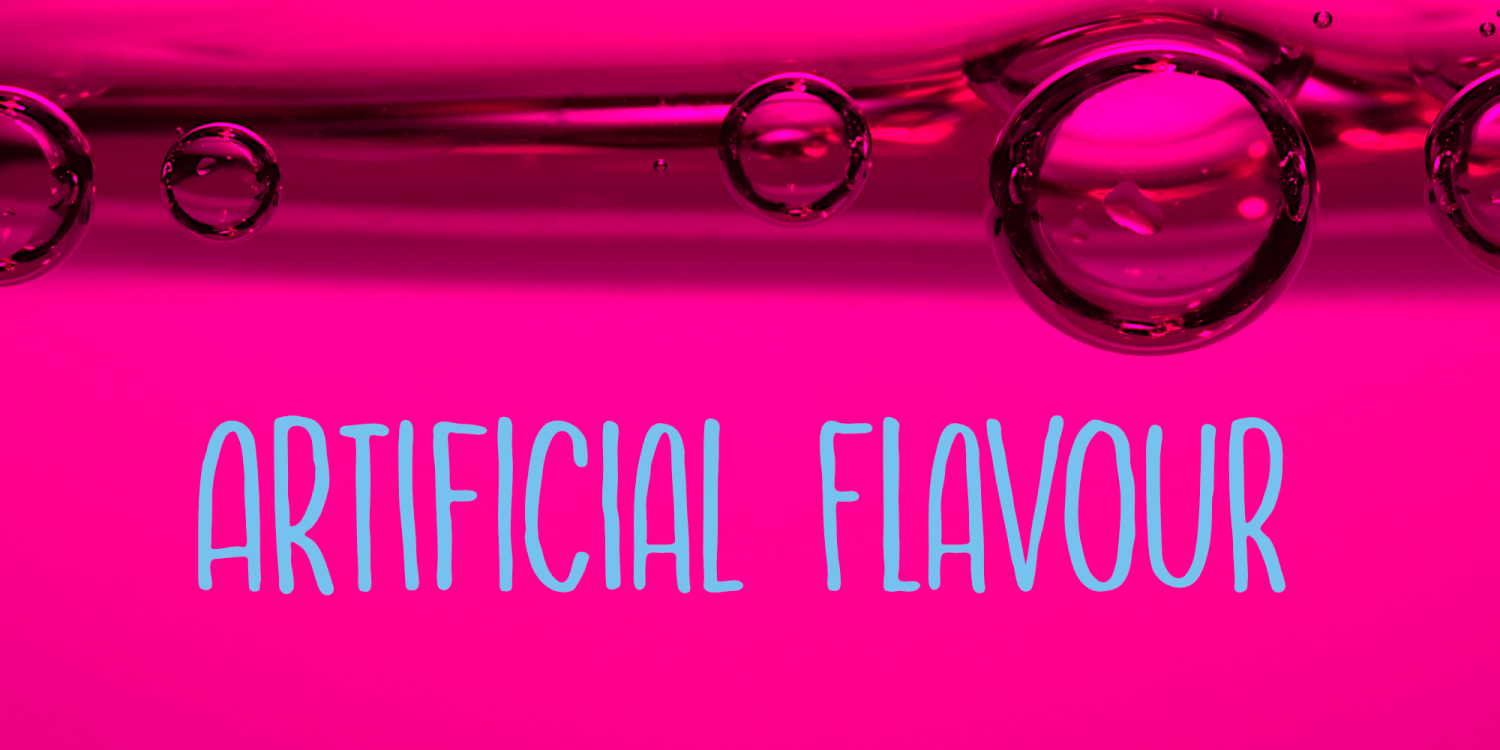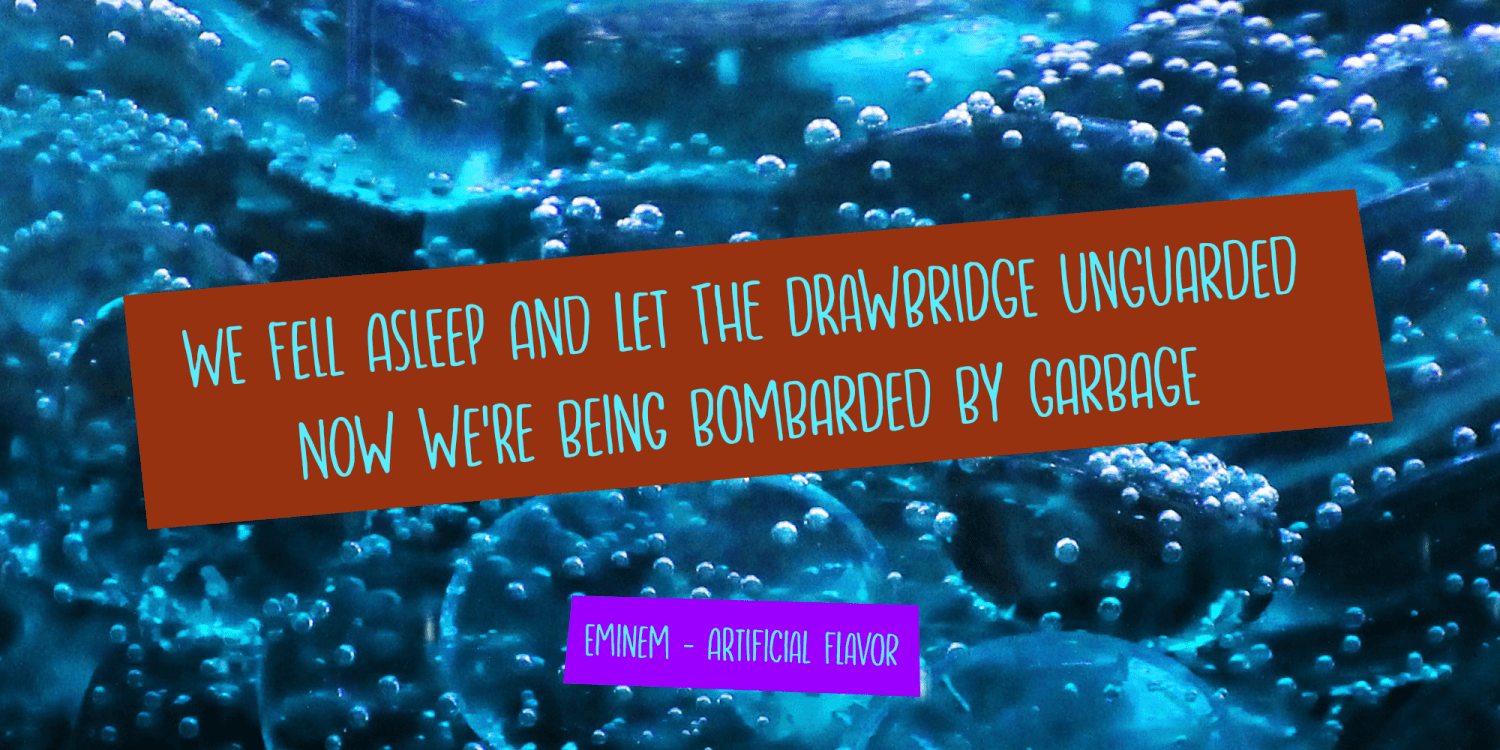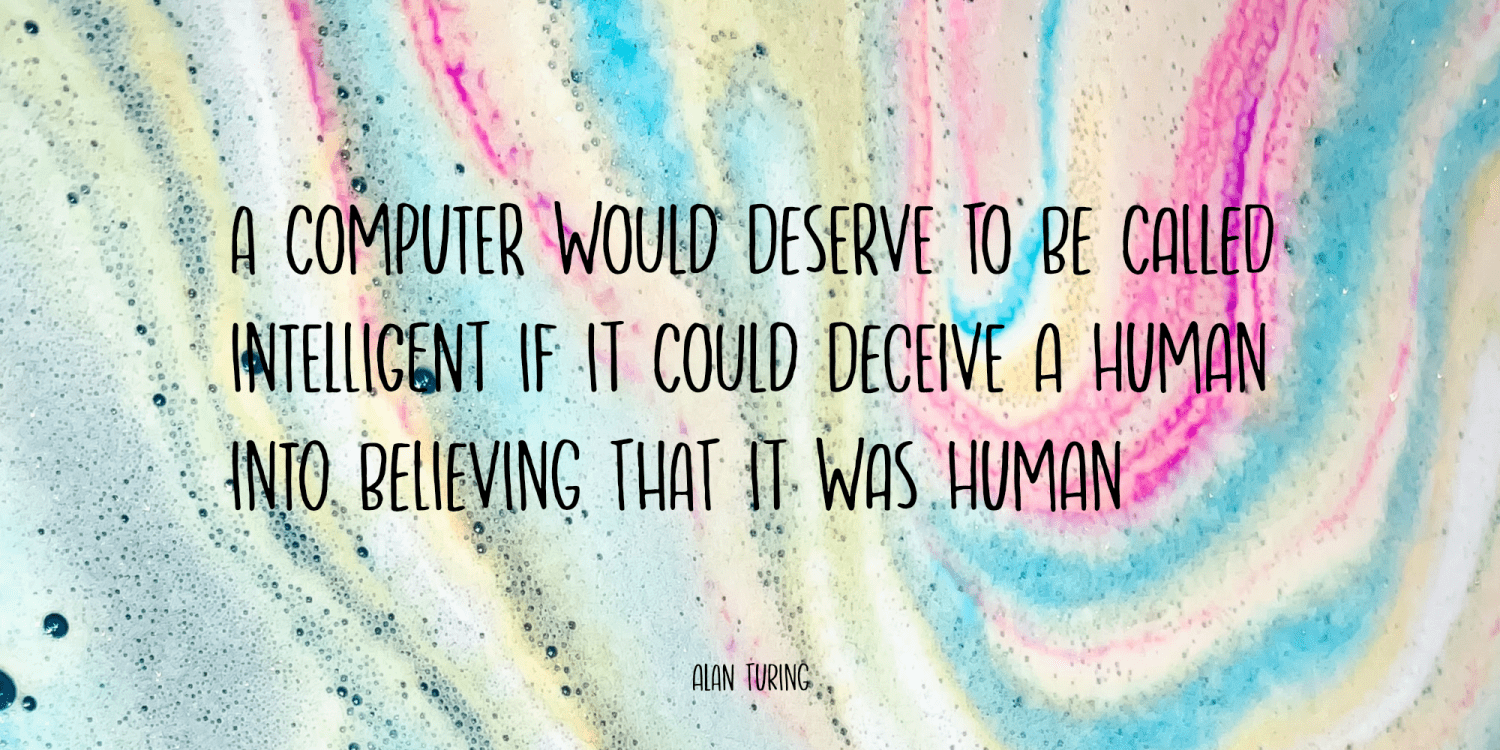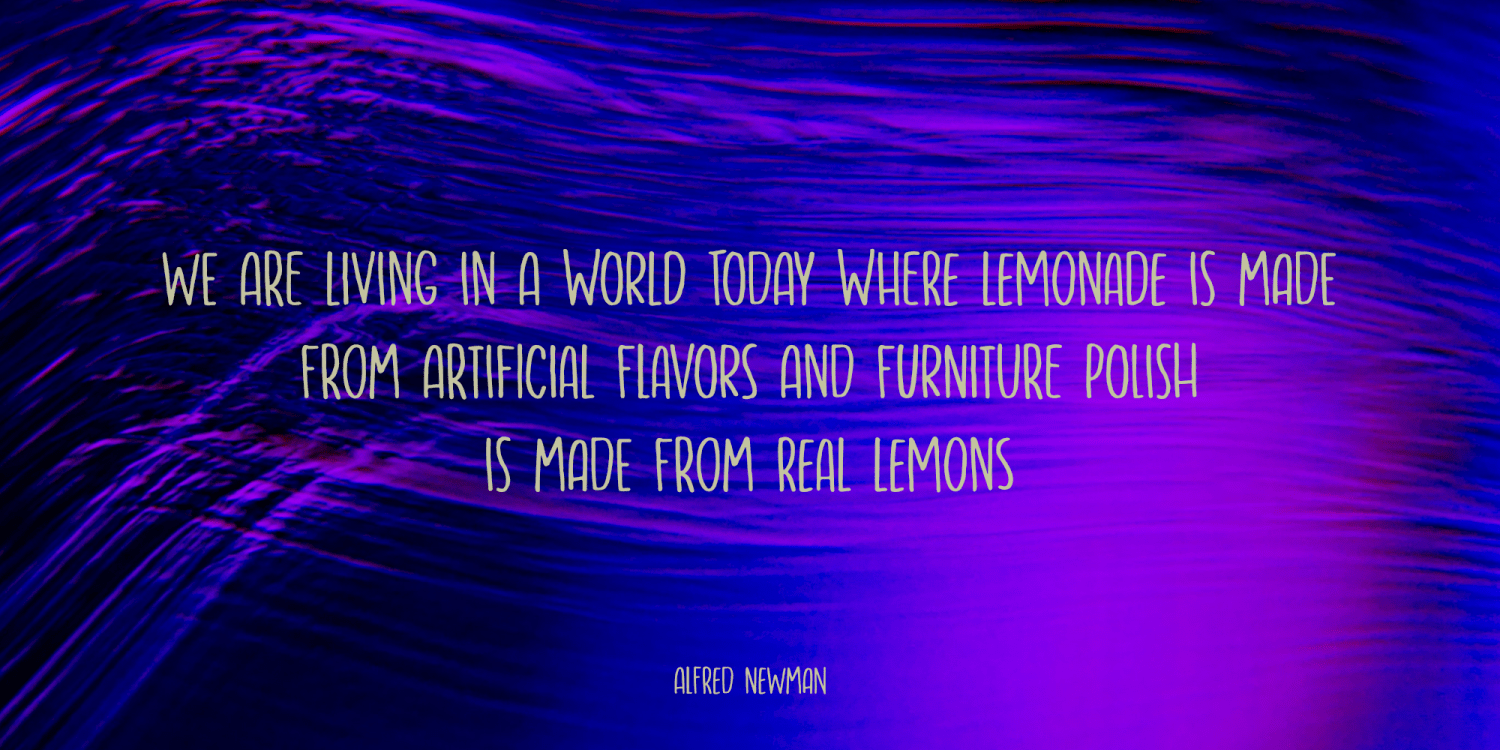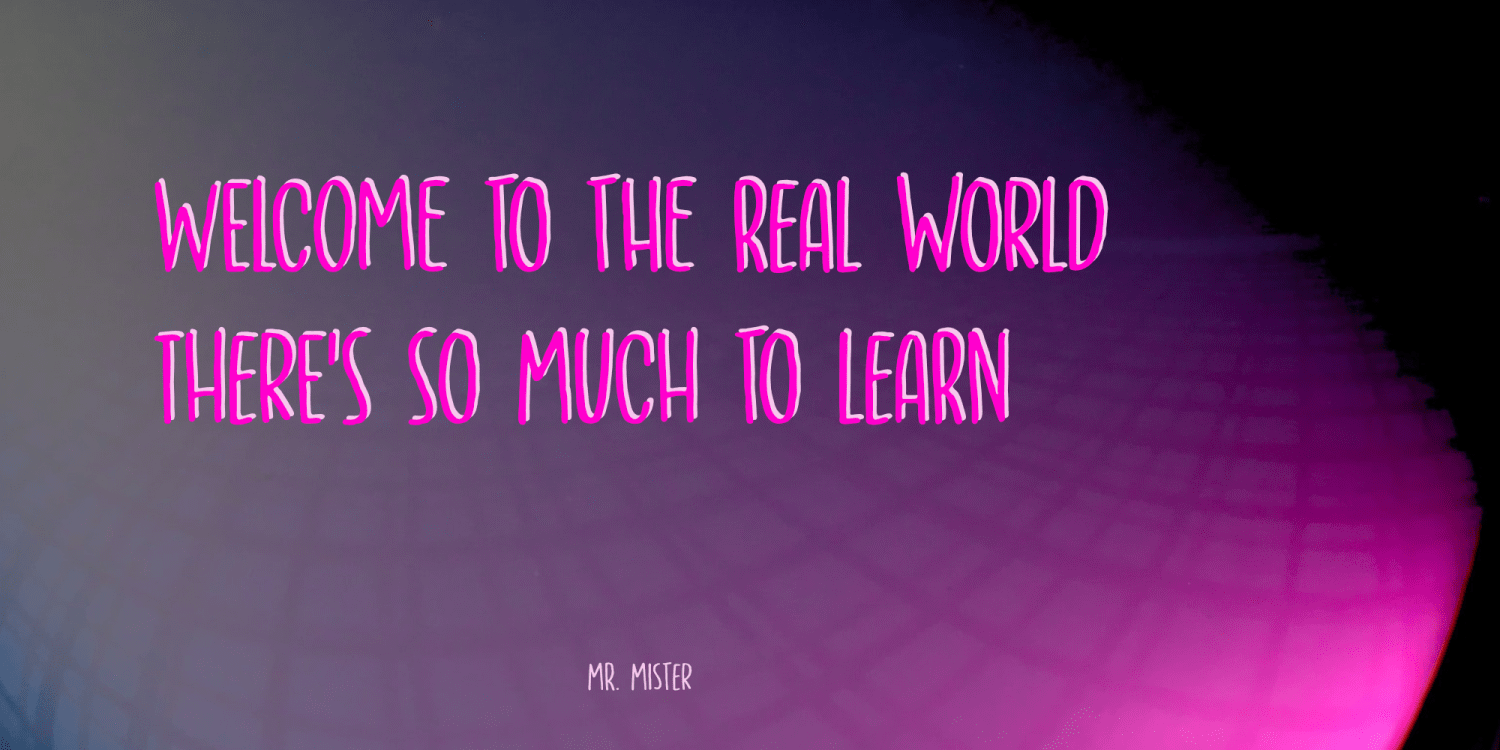
Artificial Flavour
I do groceries a couple of times a week. When I am shopping for food, I always read the ingredients list; I don't want too much sugar, nor palm oil, trans fats or a lot of E numbers. It used to be quite hard finding products that didn't contain artificial flavours or colouring, but it is getting better.
Artificial Flavour is an anti-ode to the time we couldn't get enough of the stuff - it is a handmade, all caps font which comes with extensive language support and a sweet set of alternates.